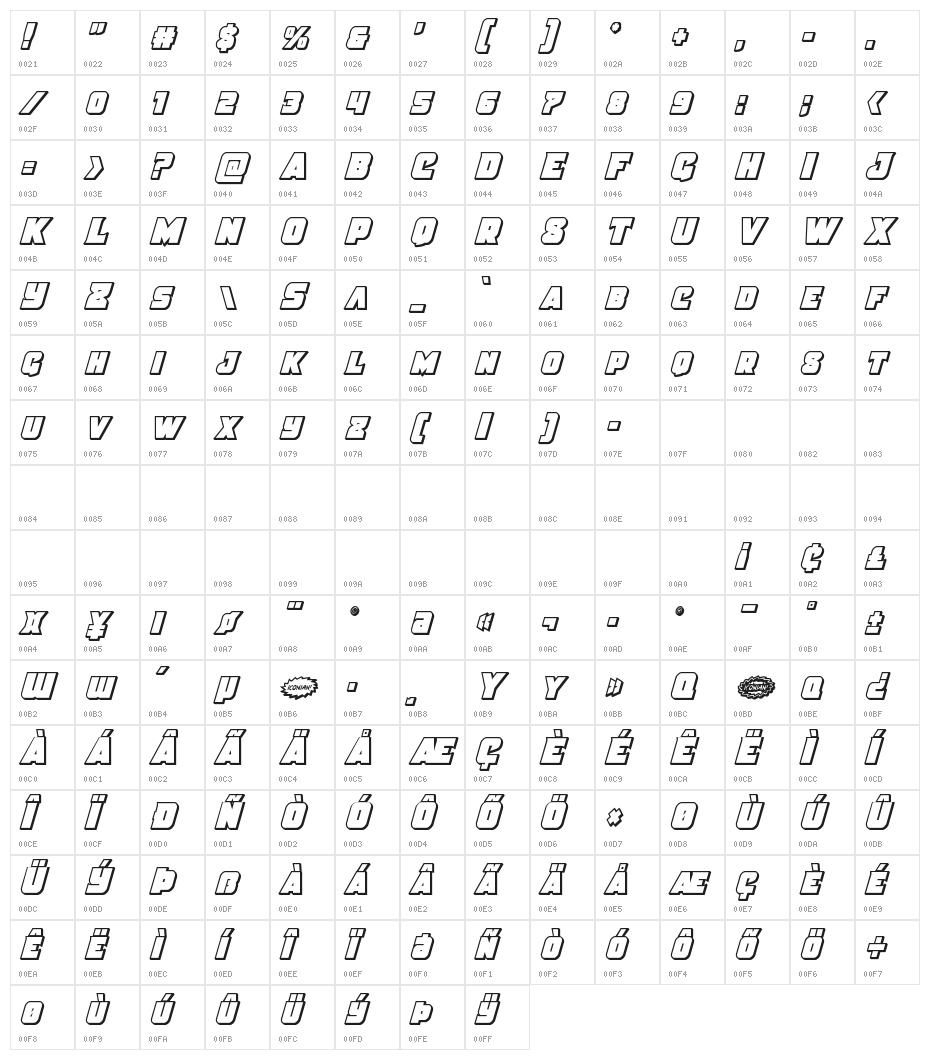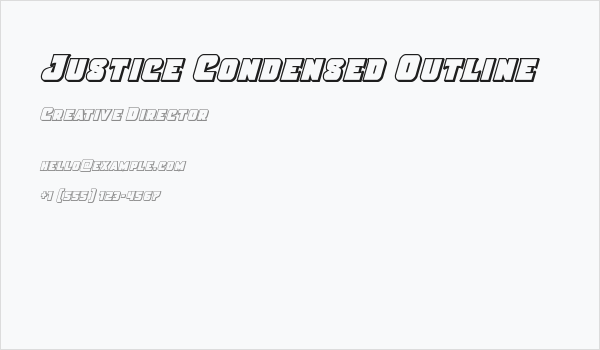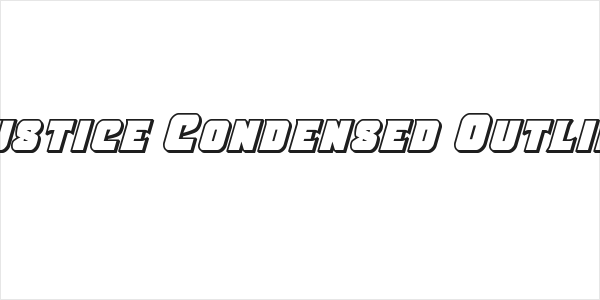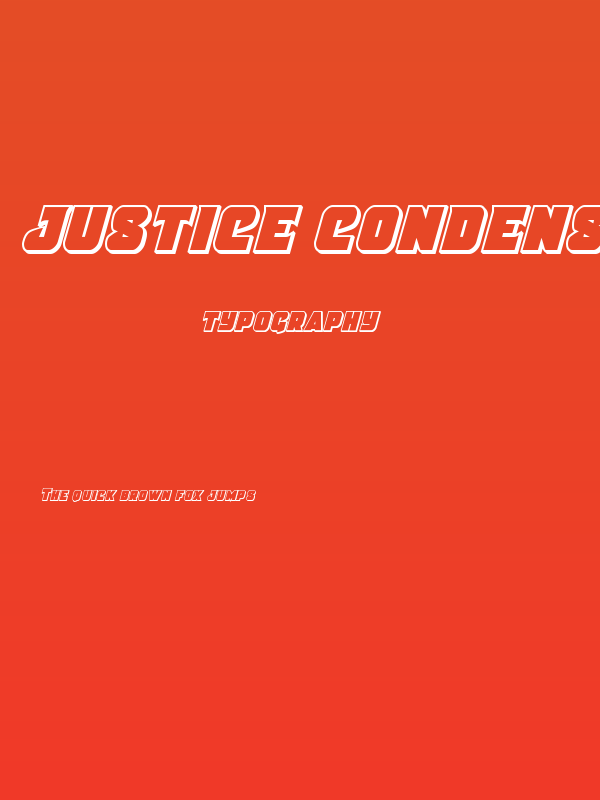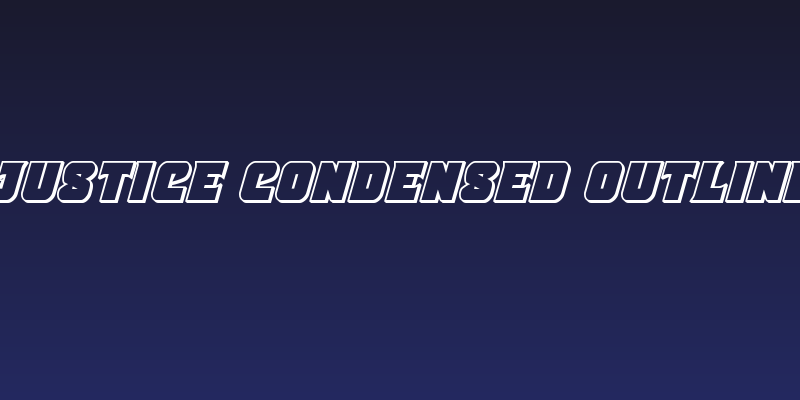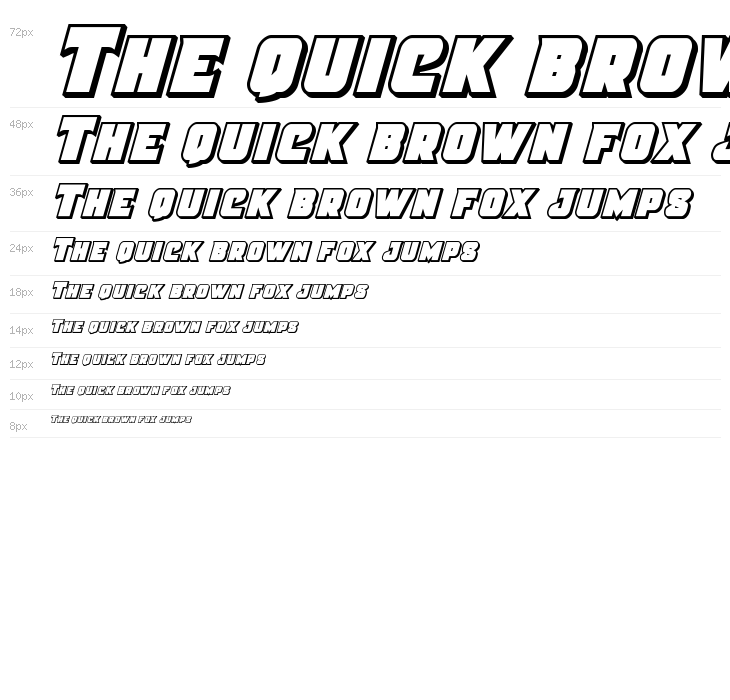
Justice Condensed Outline Font
Justice Condensed Outline Description
This font features a bold, condensed style with an outline that gives it a striking and impactful appearance. The characters are uppercase and maintain a consistent height, creating a uniform look. The outline adds a layer of depth, making the letters stand out against backgrounds. The design is modern and dynamic, suitable for attention-grabbing headlines or titles. The spacing between characters is tight, enhancing the compact nature of the font. The high contrast between the thick strokes and the thin outline adds to its boldness, making it ideal for designs that require a strong visual presence.